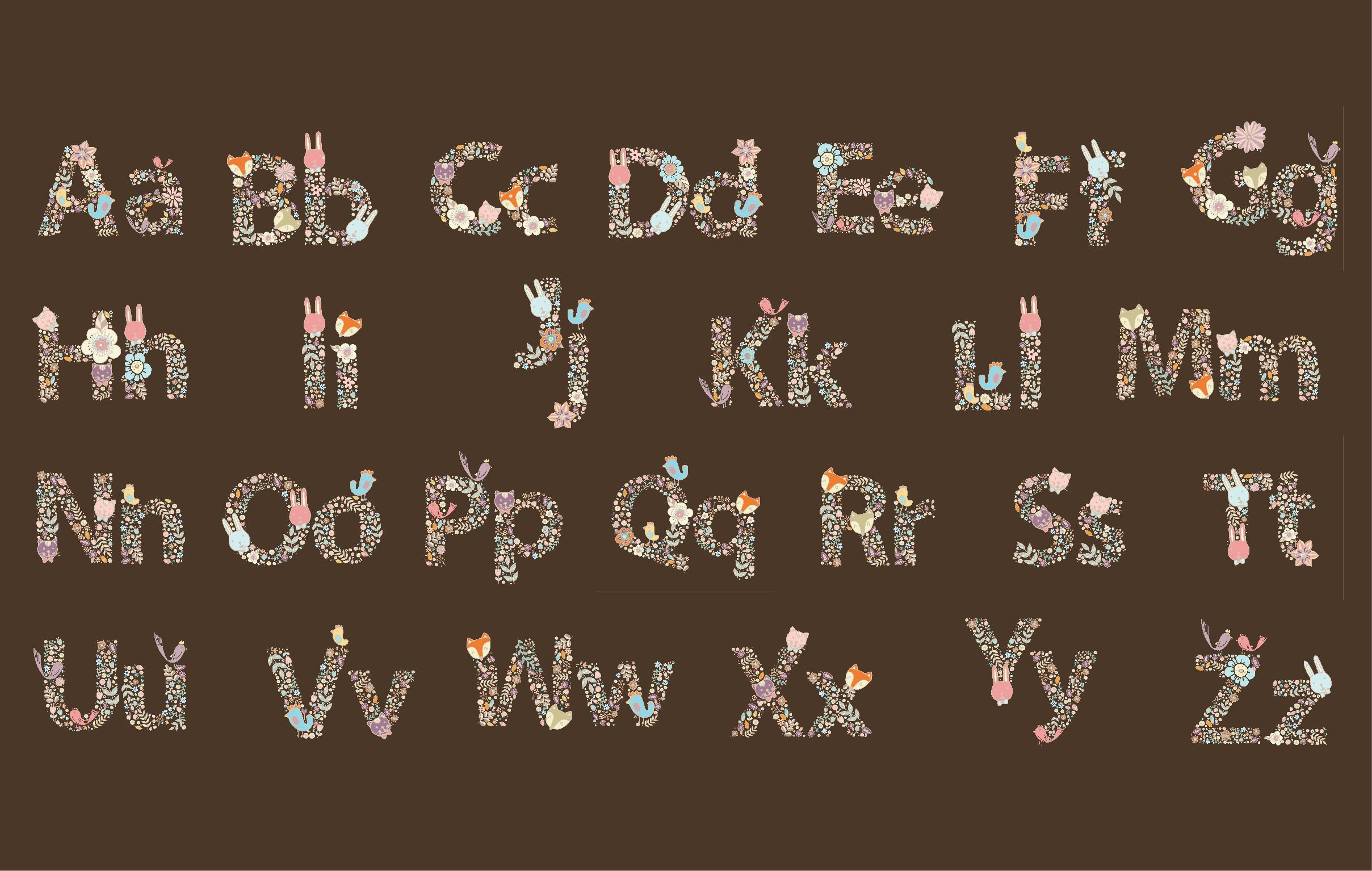
A-Z Font Design Cute Animal Flower
The letter A-Z Bright floral element of colorful alphabet Cute Animal, flowers, and twigs. floral ABC element in vector